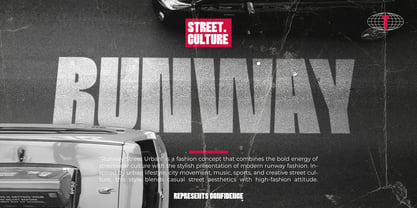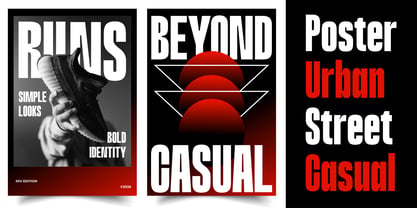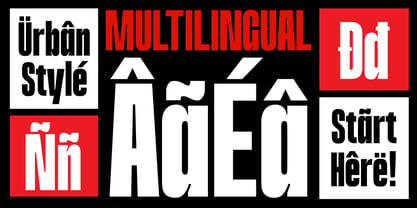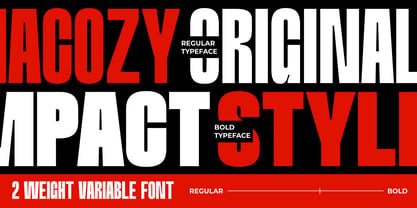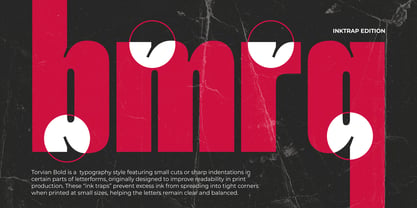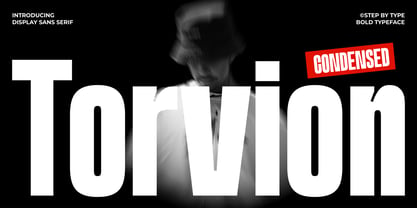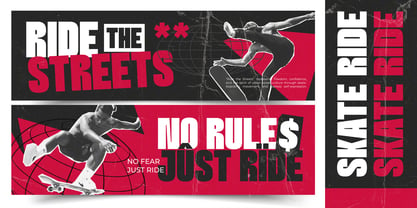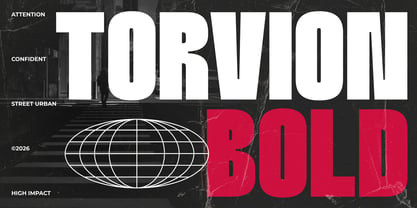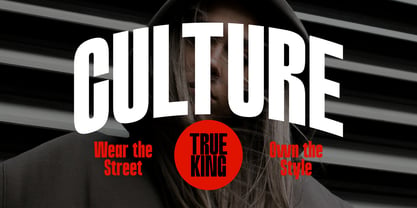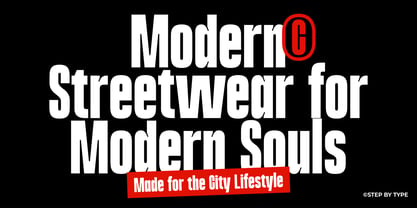
Torvion
by Steptype
Torvion is a bold condensed display sans forged for raw, street-level impact. Tall, tight, and heavy-set, it hits with the kind of confidence that owns a poster wall, a mixtape cover, or a streetwear drop. This is a typeface with attitude — built for brands that want to be seen, heard, and remembered.
Its dense proportions and powerful strokes give every headline a bold, urban edge, while the condensed structure lets you pack maximum statement into minimal space. From graffiti-adjacent poster art to sport and hype branding, from magazine spreads to bold merch graphics, Torvion turns any short phrase into a shout.